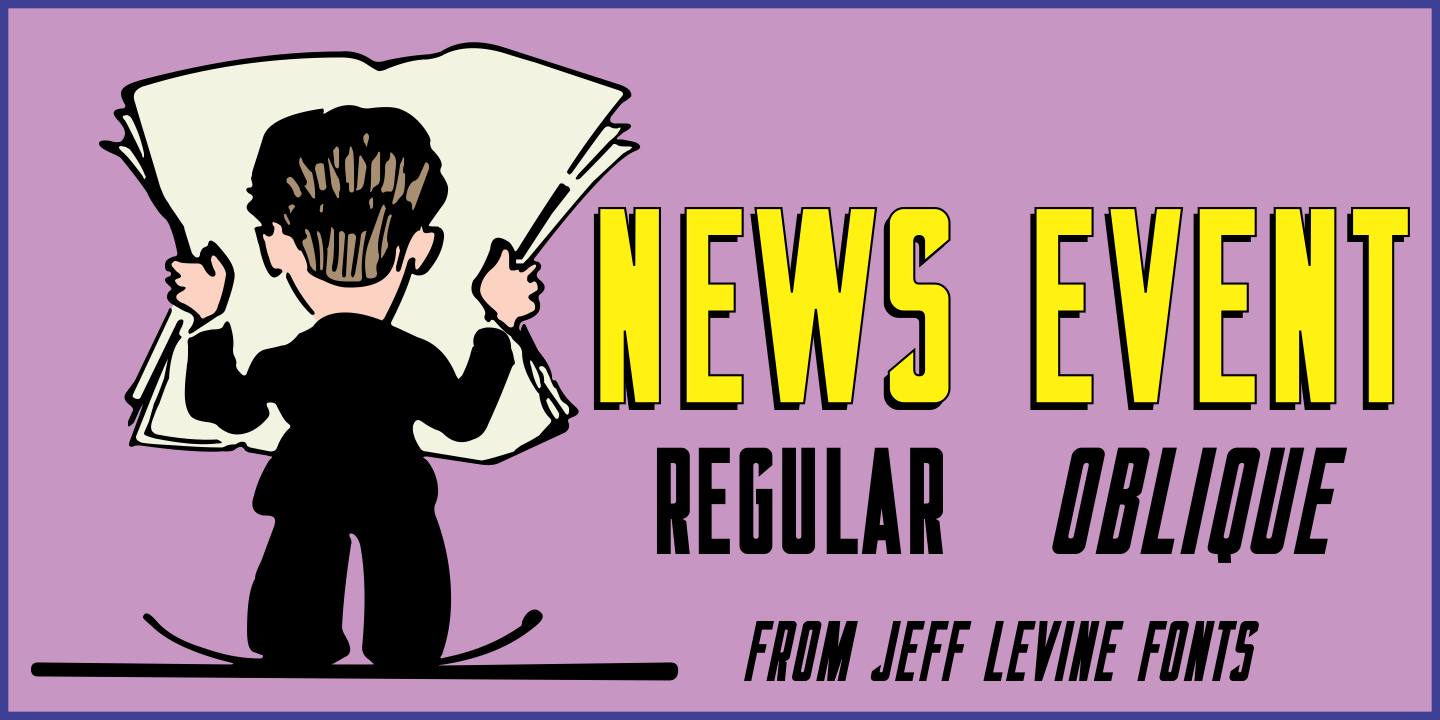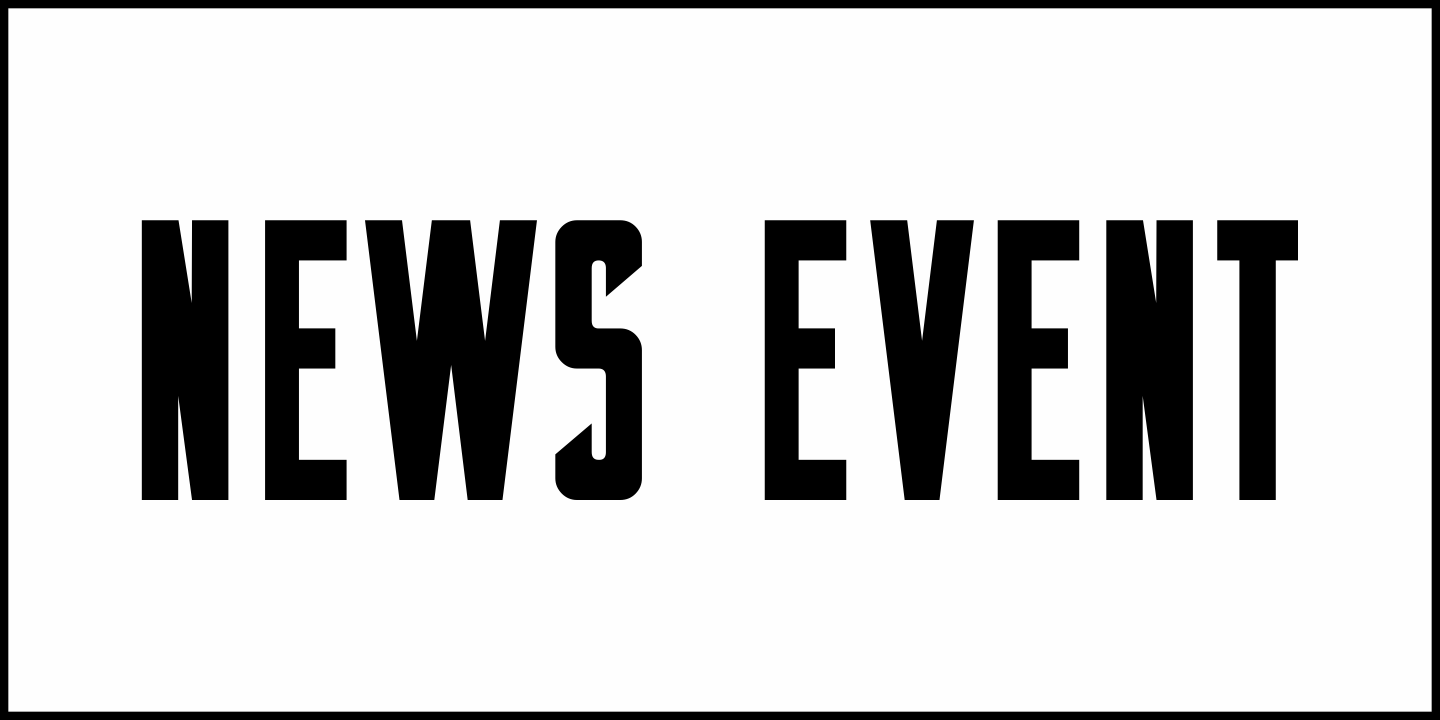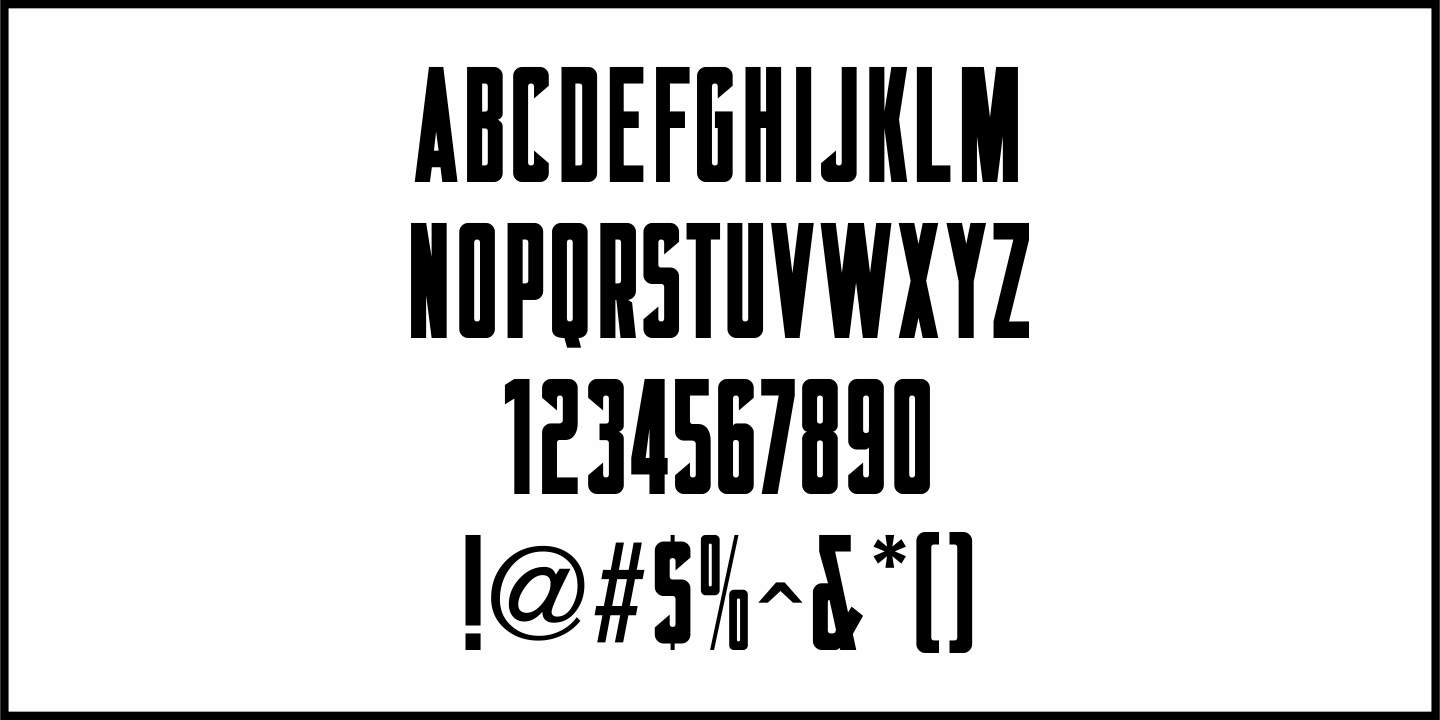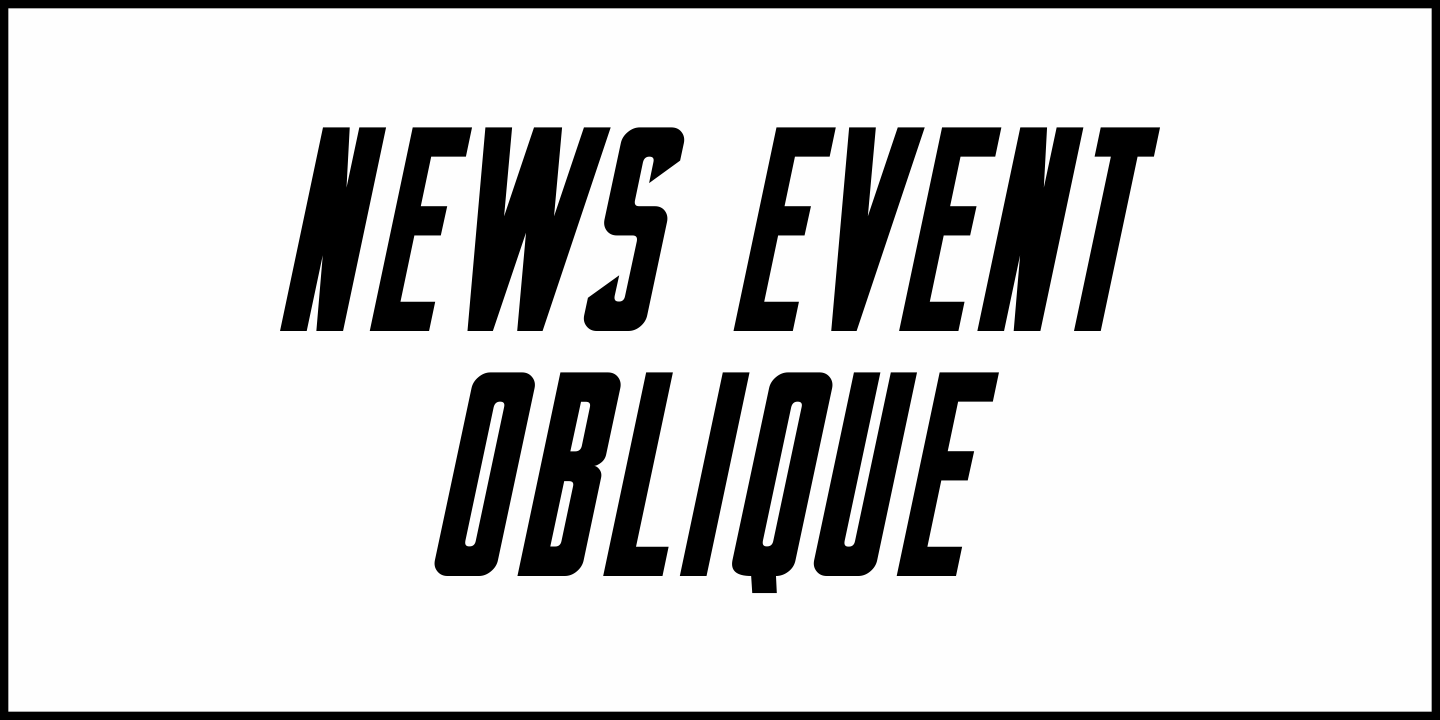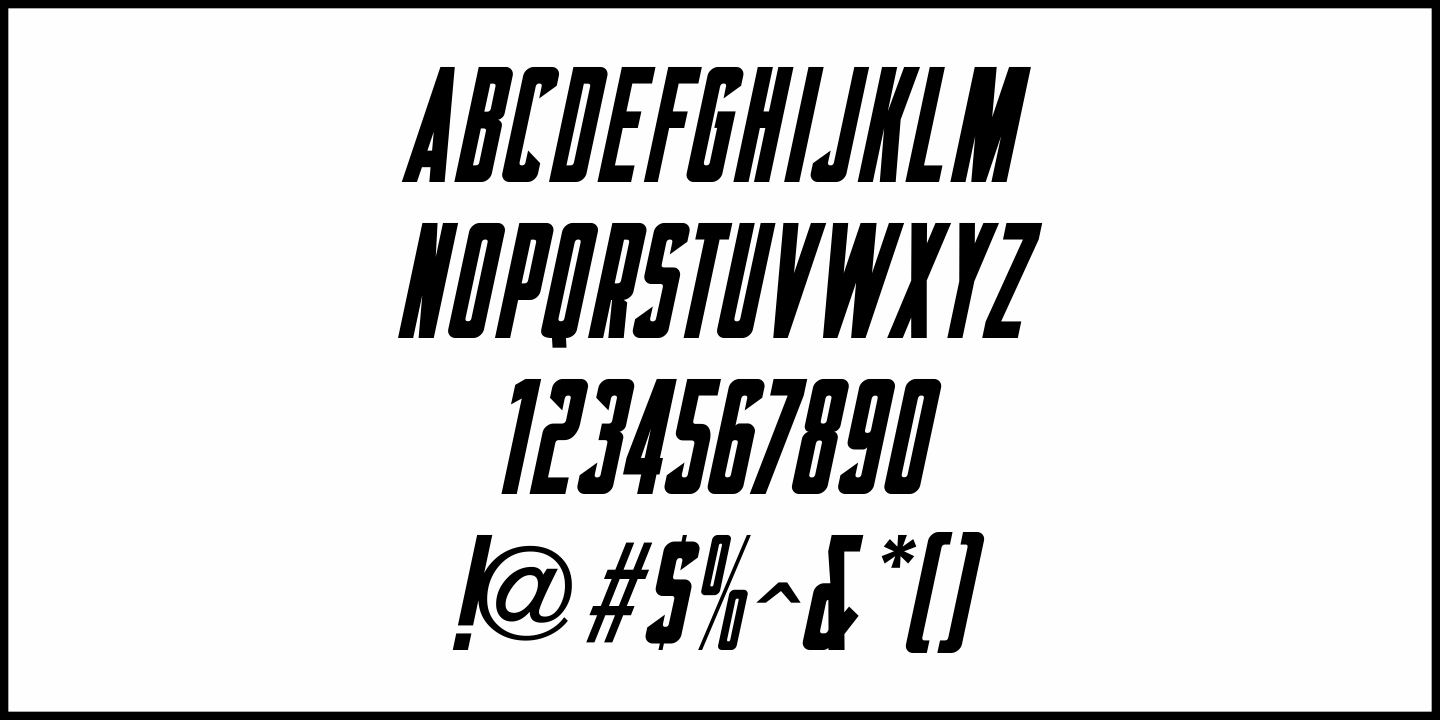
News Event
A vintage newspaper front page from June 6, 1944 proclaimed “France Invaded” in a bold, condensed wood type that has been revived as News Event JNL – available in both regular and oblique versions.
News Event JNL Regular by Jeff Levine Fonts